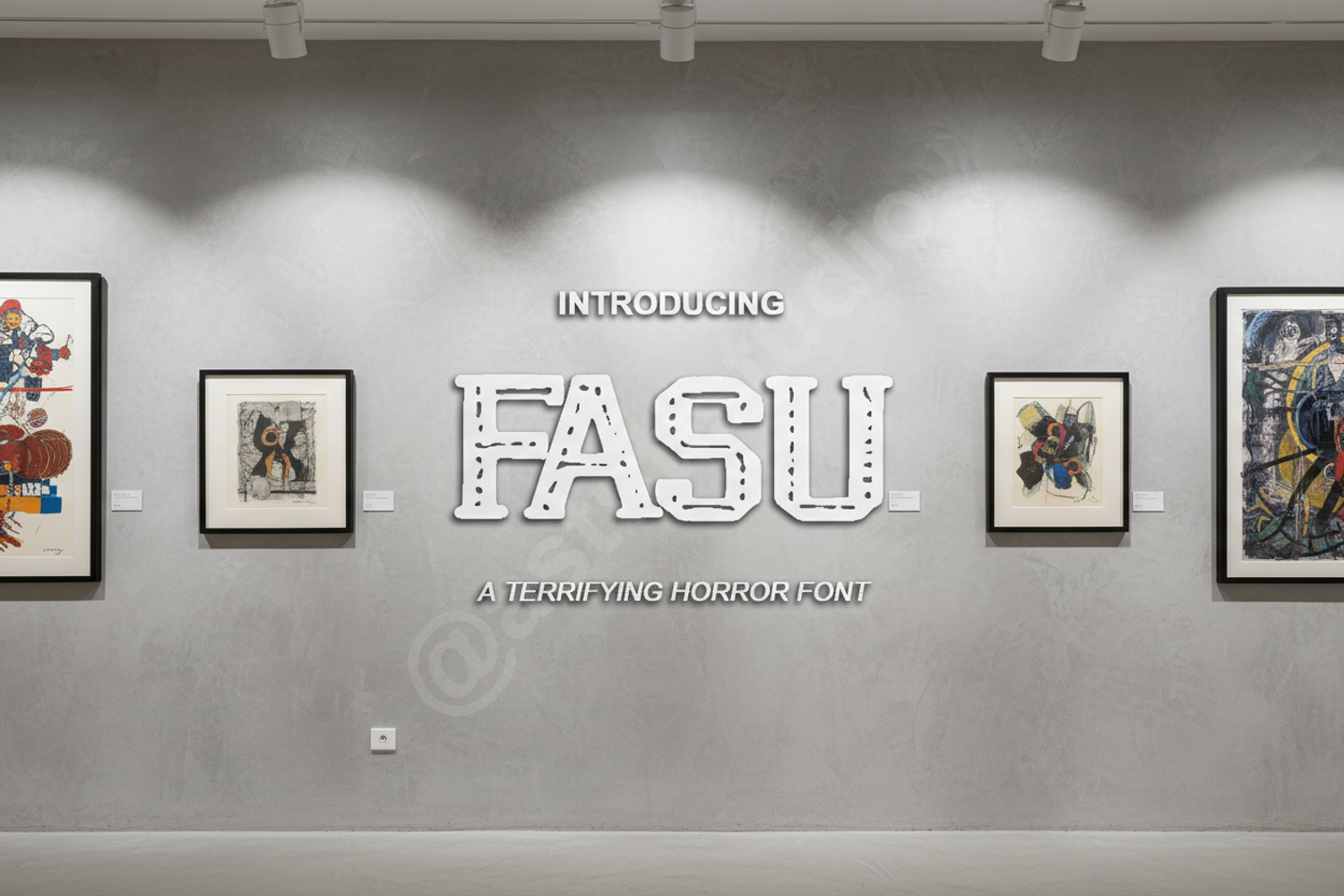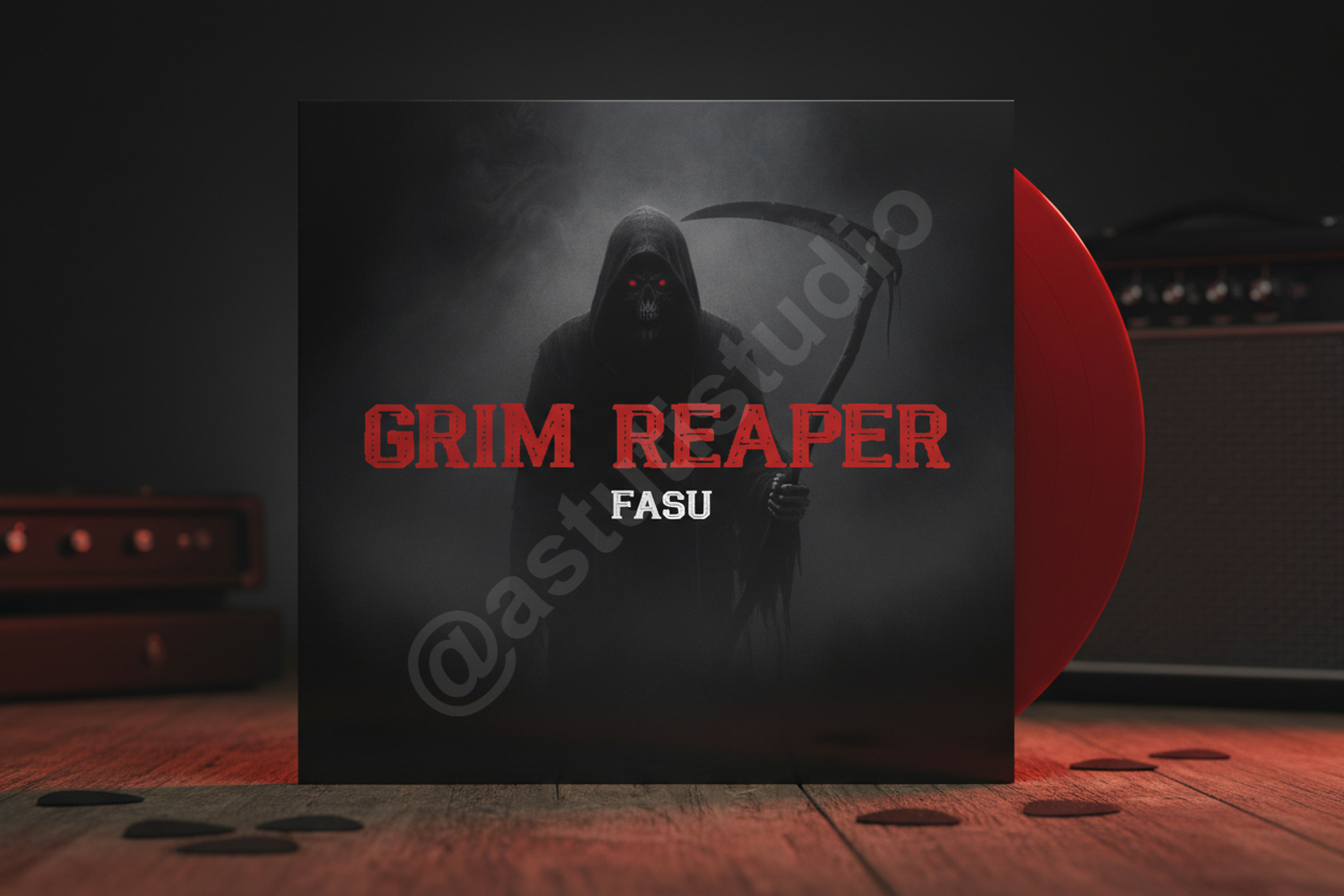
Fasu - Modern Geometric Sans Serif
Fasu
Fasu is a premium and versatile sans serif typeface designed to bring a touch of modern elegance to your creative projects. With its clean lines and geometric precision, Fasu offers a professional look that is both timeless and contemporary. Whether you are building a brand identity or designing high-end editorial layouts, Fasu provides the clarity and sophistication your work deserves.
- Branding and Logo Design: Perfect for creating memorable and professional brand identities.
- Editorial Layouts: Ideal for magazine headlines, body text, and book covers.
- Digital Marketing: Enhance your social media graphics, website headers, and online advertisements.
- Product Packaging: Add a premium feel to labels, boxes, and merchandise.
- Wedding Stationery: A clean choice for modern and minimalist wedding invitations.